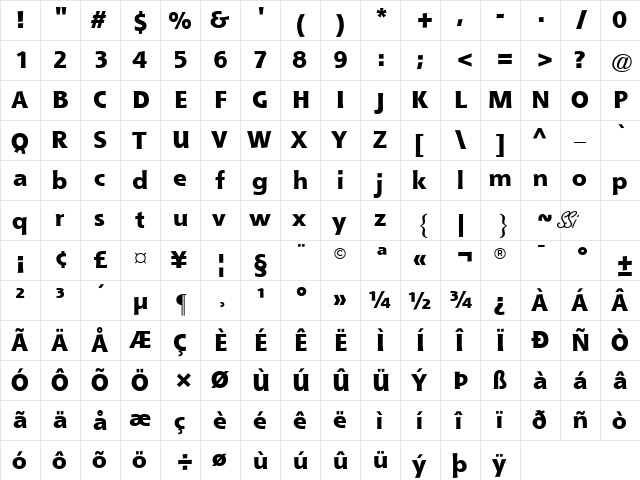
Que Black SSi Extra Bold Font Preview
Que Black SSi Extra Bold
Que Black SSi Extra Bold Font Details
Design Context for Que Black SSi Typeface
Que Black SSi is a composed and adaptable typeface that performs quietly and consistently across a wide range of design contexts. Its bold stroke weight gives it real presence on the page.